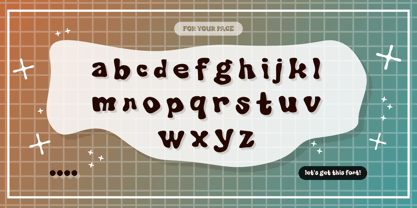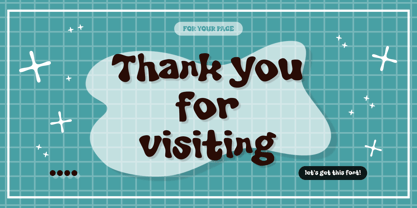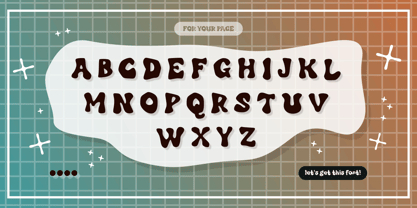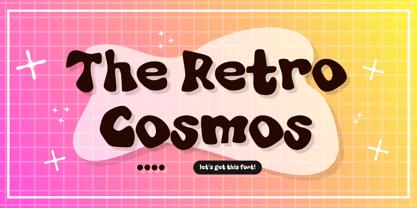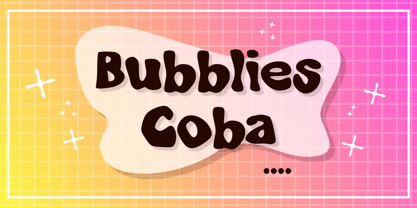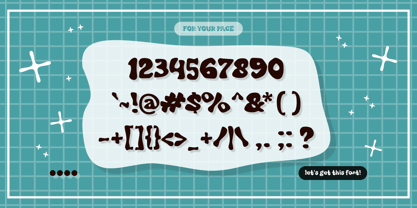
Bubblies Coba
by Abda bil Qalam
The Bubblies Coba Font Family was designed by Wahyu Eka Prasetya, Ahmad Hidayat and published by Abda bil Qalam. Bubblies Coba contains 1 styles. More about this family
Bubblies: The Deliciously Cheerful Display Font Prepare to fall in love with Bubblies, the plump, playful, and irresistibly smooth typeface designed to bring instant joy to any project! The story behind Bubblies is simple: we wanted to capture the feeling of pure, unbridled happiness—like biting into your favorite treat or watching soap bubbles float in the air. Its style is characterized by soft, rounded edges and a lack of sharp corners, giving it a wonderfully organic and squishy aesthetic. The heavy weight ensures high visibility, while the gentle curves keep it incredibly approachable and friendly. Where Bubblies Truly Shines: This font is your go-to for anything sweet and spirited. It excels in food branding (especially desserts, snacks, and candy packaging), children's book covers and titles, and casual gaming interfaces. Use it for headlines, logos, and attention-grabbing social media graphics to inject a huge dose of cheerfulness and warmth. Standout Features: Bubblies includes a comprehensive character set featuring all necessary punctuation and numerals, ensuring versatility across various languages and applications. Its balanced weight distribution, even in its highly stylized form, maintains readability while maximizing its fun, bouncy personality. Bring your designs to life with the delightful charm of Bubblies!
Designers: Wahyu Eka Prasetya, Ahmad Hidayat